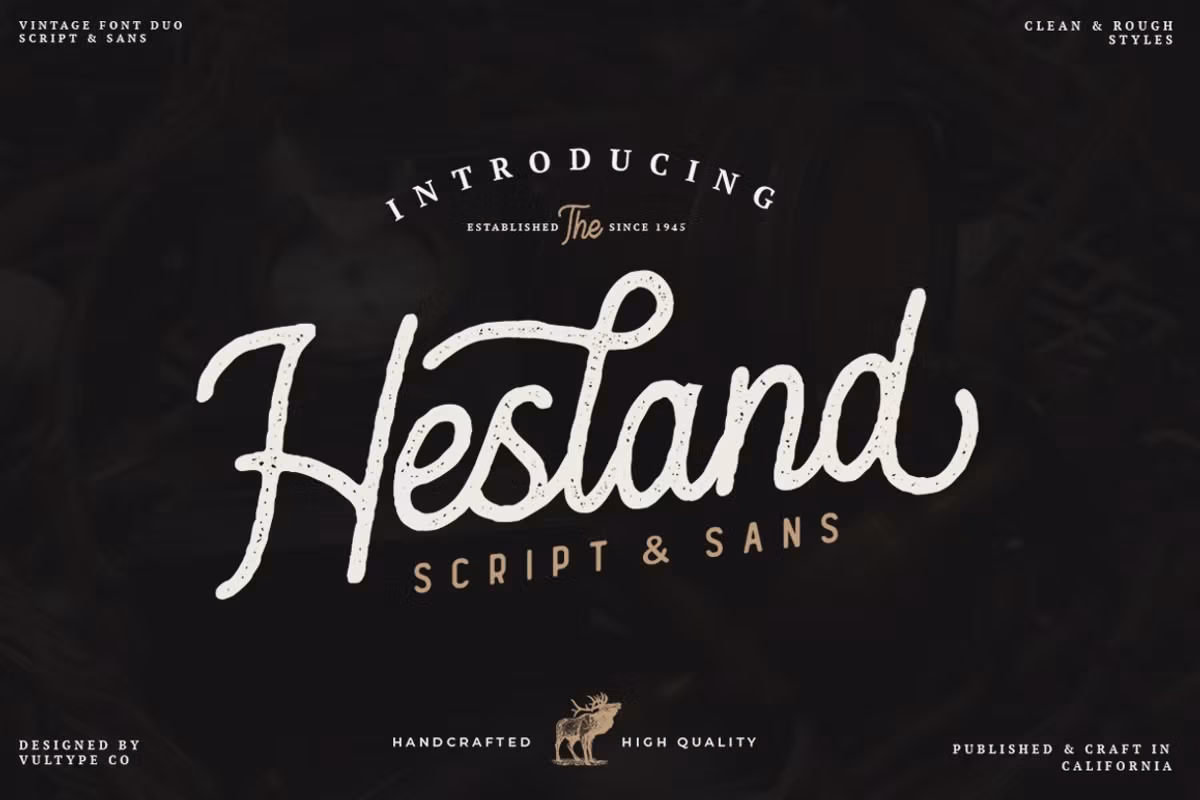
Hesland - Vintage Script Font Free Download
Hesland – Vintage Script Font Free Download is a bold and nostalgic typeface that captures the spirit of classic hand-lettering with a rugged, retro flair. Perfect for logos, signage, apparel, barbershop branding, and vintage-themed packaging, Hesland adds authentic character and timeless charm to your designs.
With smooth curves, textured strokes, and stylistic alternates, this font brings a handcrafted look that’s ideal for both print and digital projects. Whether you're designing a whiskey label, a motorcycle club logo, or a retro event poster, Hesland delivers impact with personality.